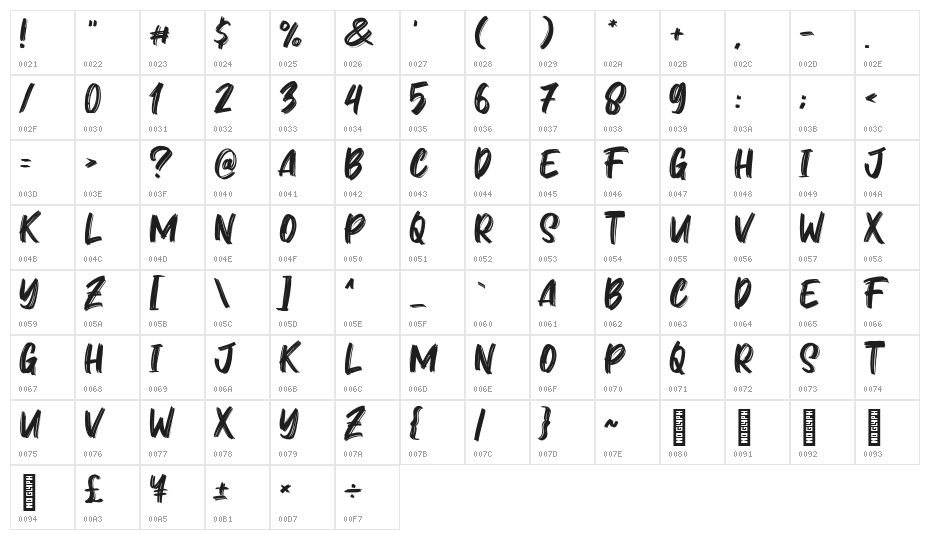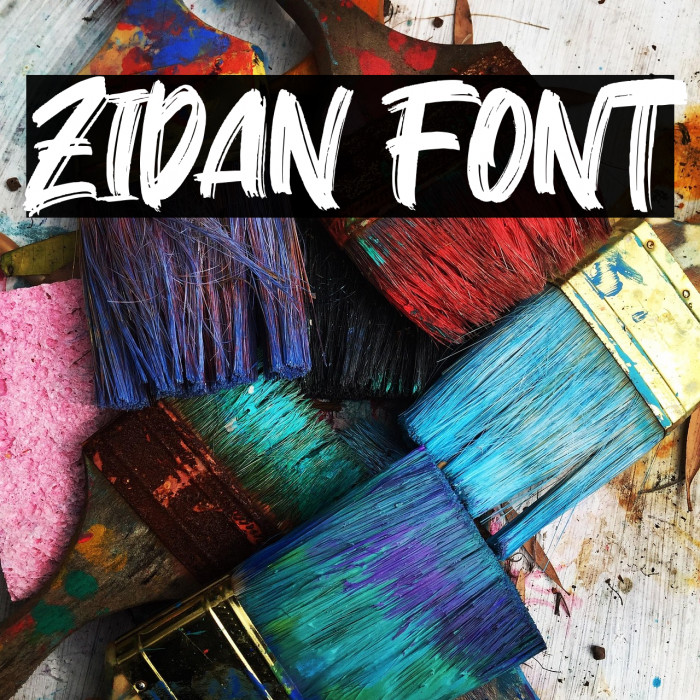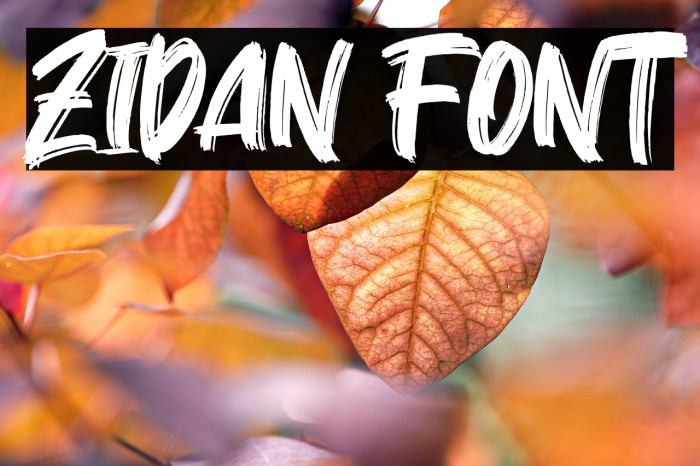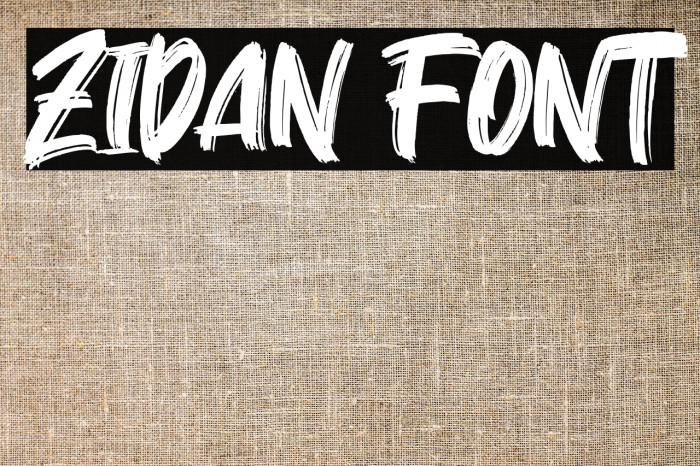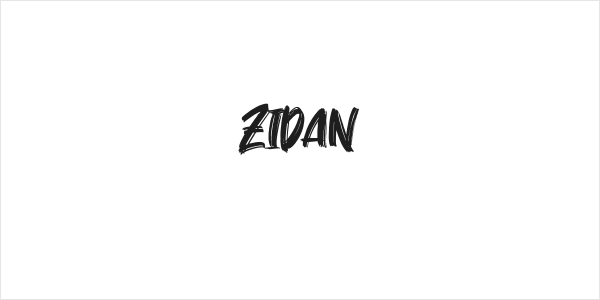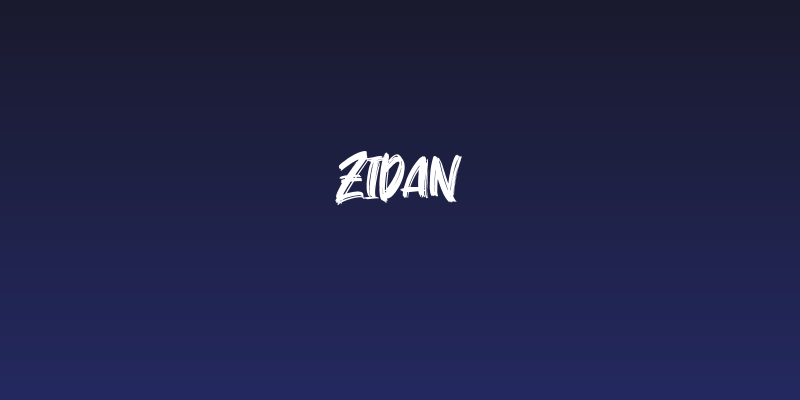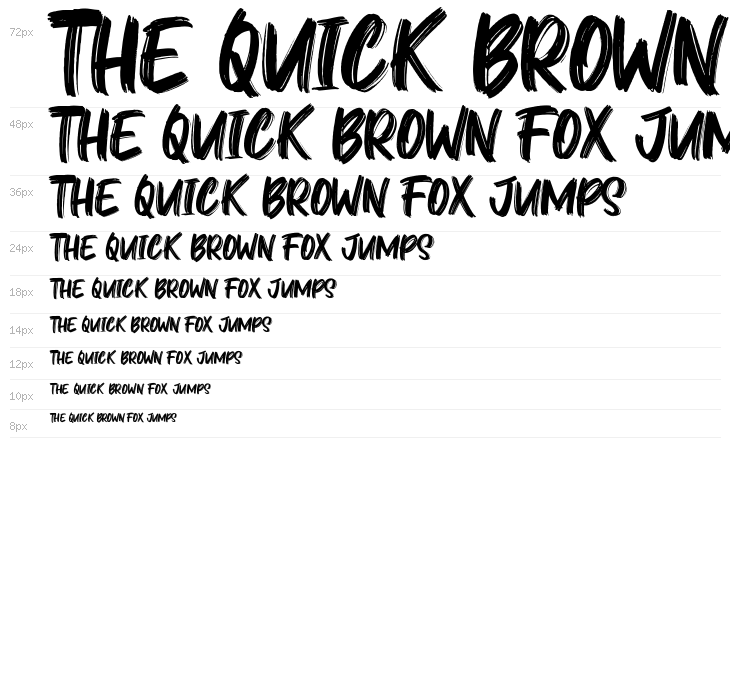
Zidan Font
Zidan Description
This font features a bold, brush-like appearance with a dynamic and energetic style. The strokes are thick and uneven, giving it a hand-painted look that is both expressive and artistic. The uppercase and lowercase letters maintain a consistent style, with a slightly slanted orientation that adds to its casual and informal feel. The numbers and special characters are equally bold and maintain the same brushstroke aesthetic, ensuring a cohesive look across all characters. This font's unique style makes it stand out, perfect for projects that require a strong visual impact.